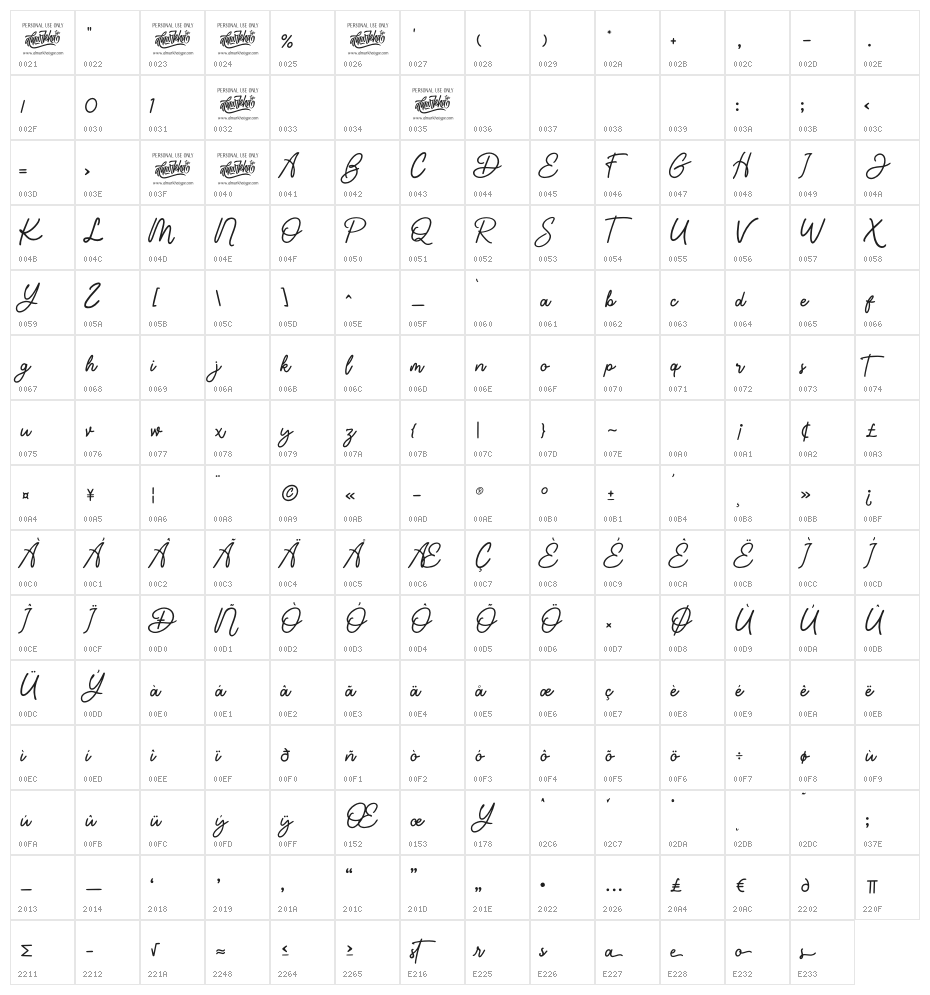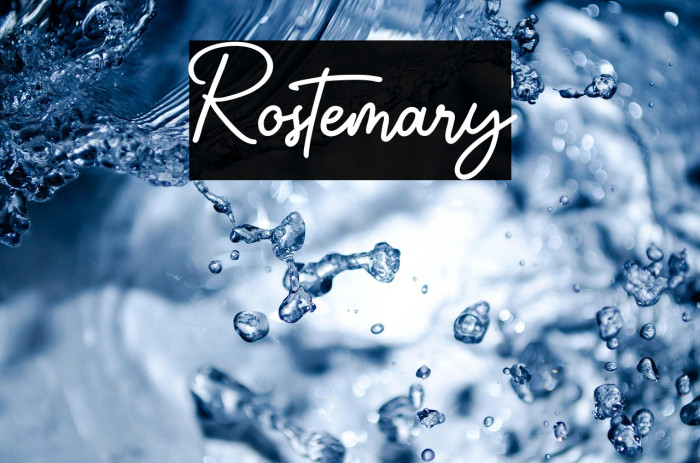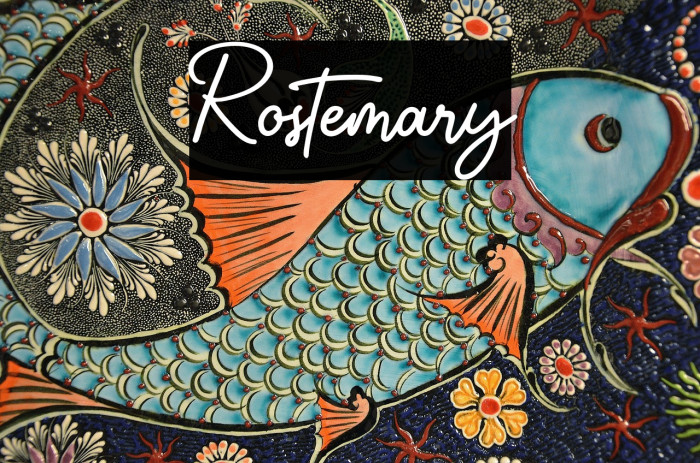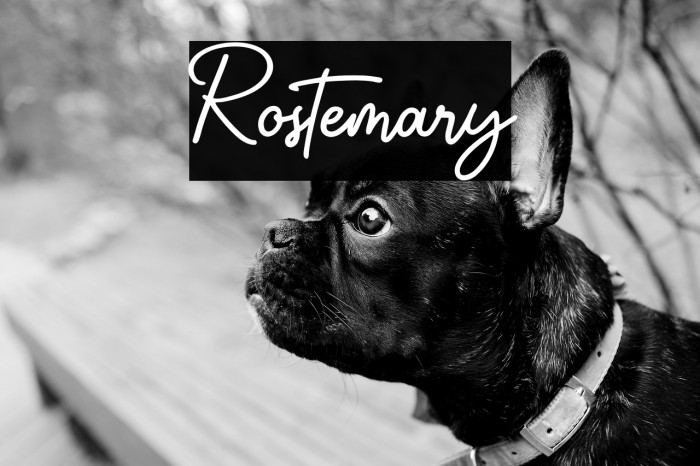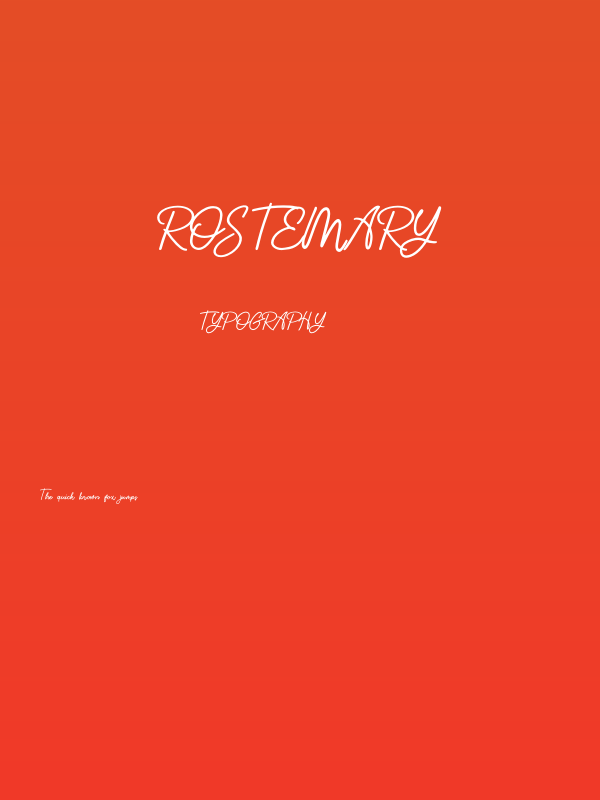
Rostemary Font
Rostemary Description
This font features a flowing, cursive style with a modern twist, characterized by its elegant and smooth letterforms. The uppercase letters are tall and slightly slanted, giving a sense of movement and grace. The lowercase letters maintain a consistent flow, with some characters featuring unique loops and swirls that add a decorative touch. The numbers and special characters are designed to match the overall aesthetic, ensuring a cohesive look. This font is suitable for personal use, as indicated in the image, and offers a stylish option for creative projects.
Use CaseLogos, Invitations, Greeting Cards
Proposed ProjectsIdeal for wedding invitations, greeting cards, logos, and branding materials that require a personal and elegant touch.